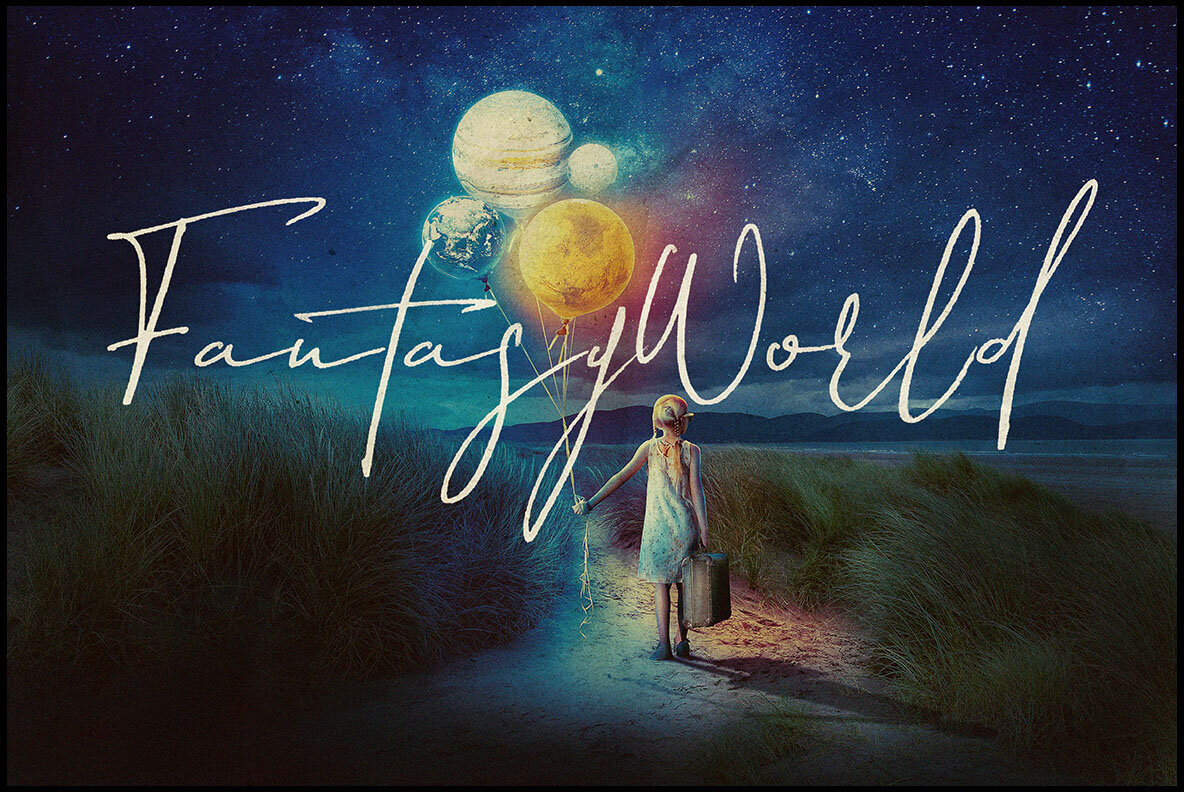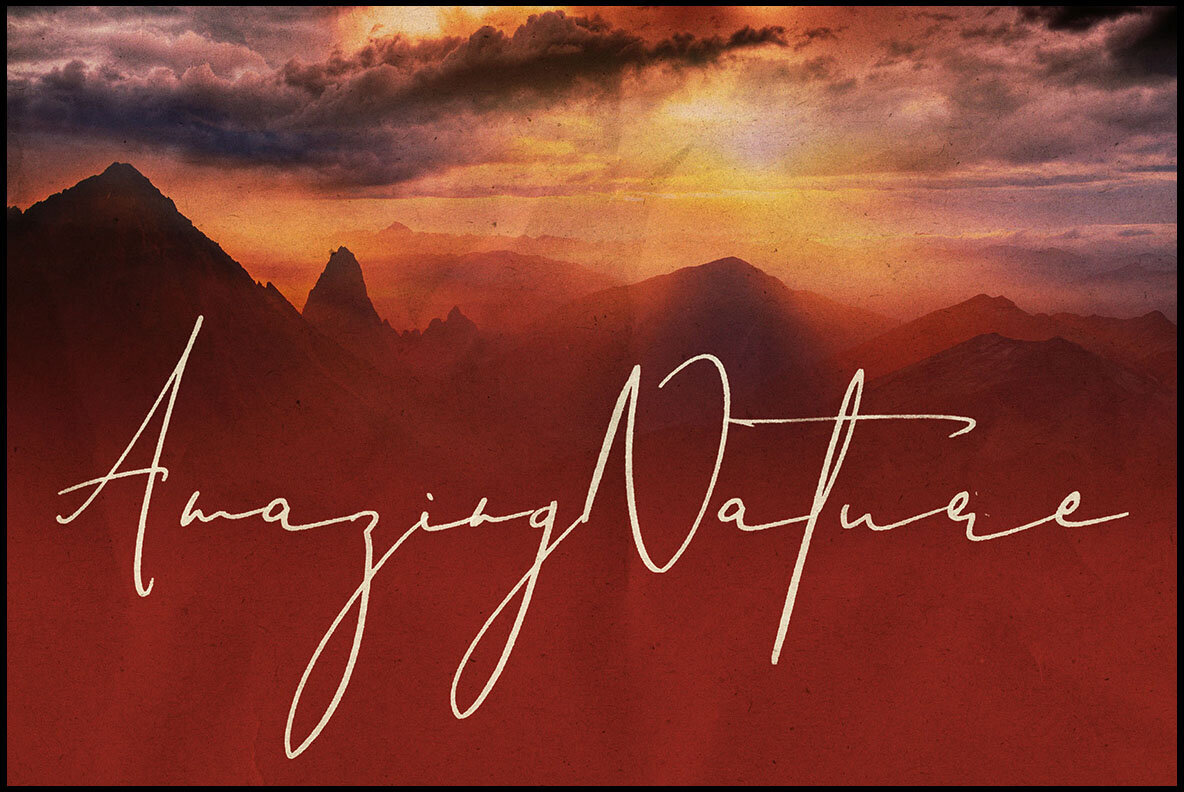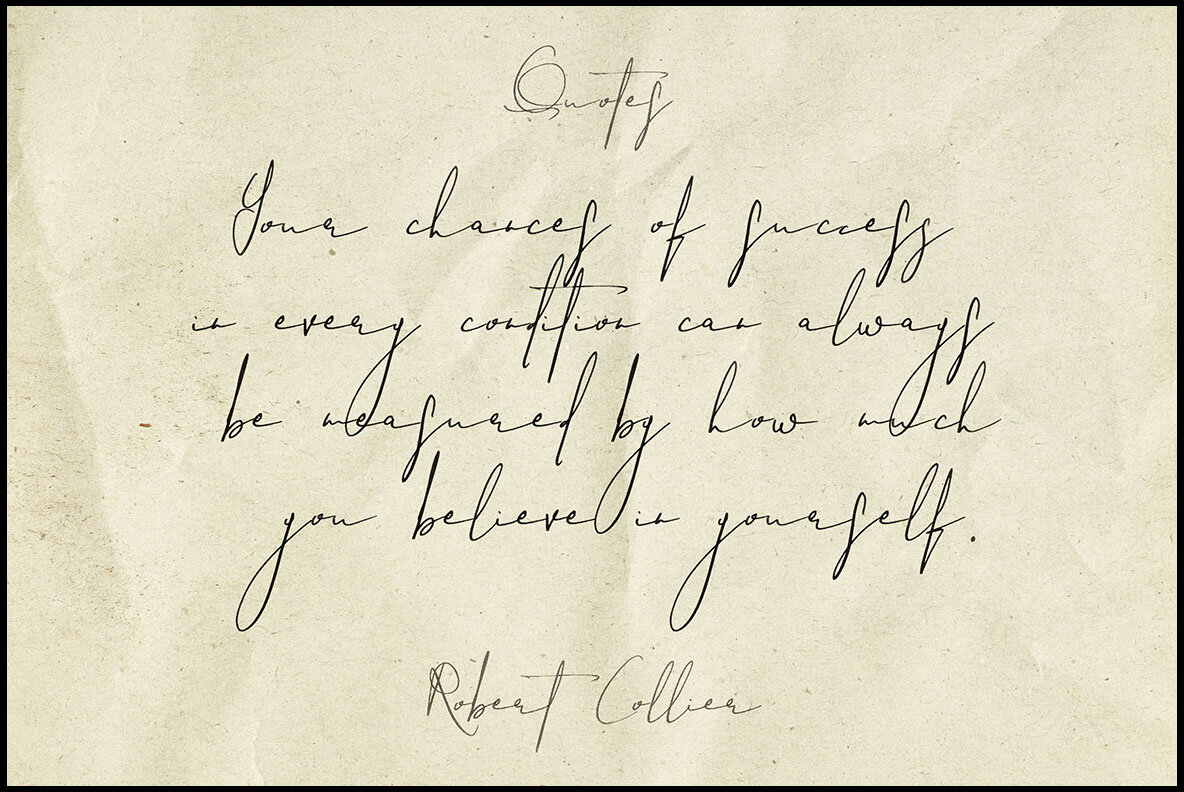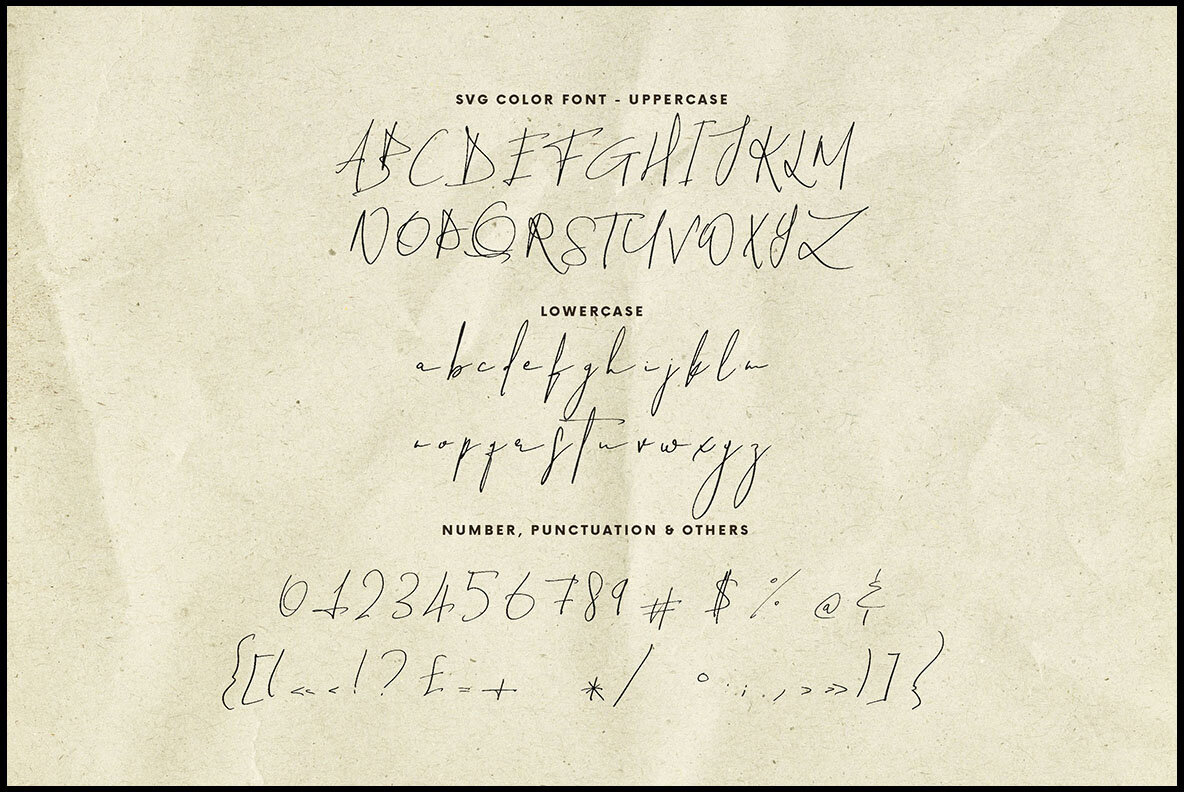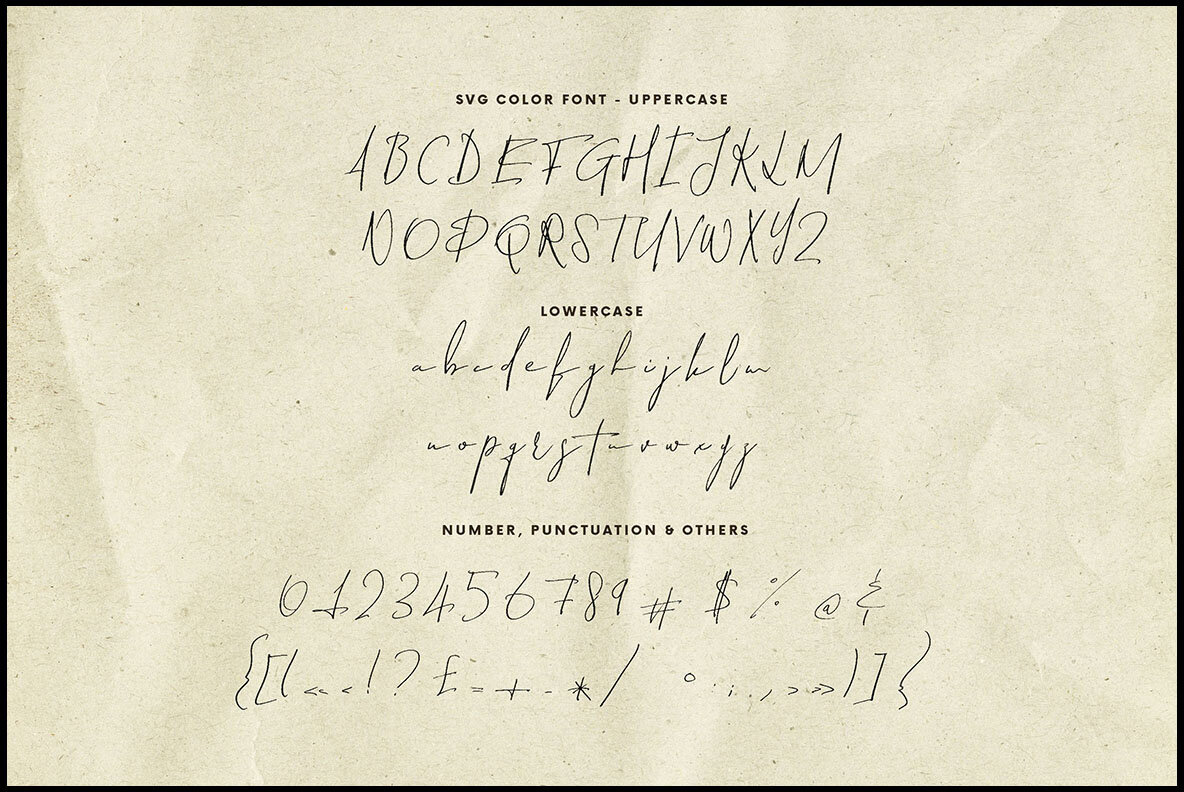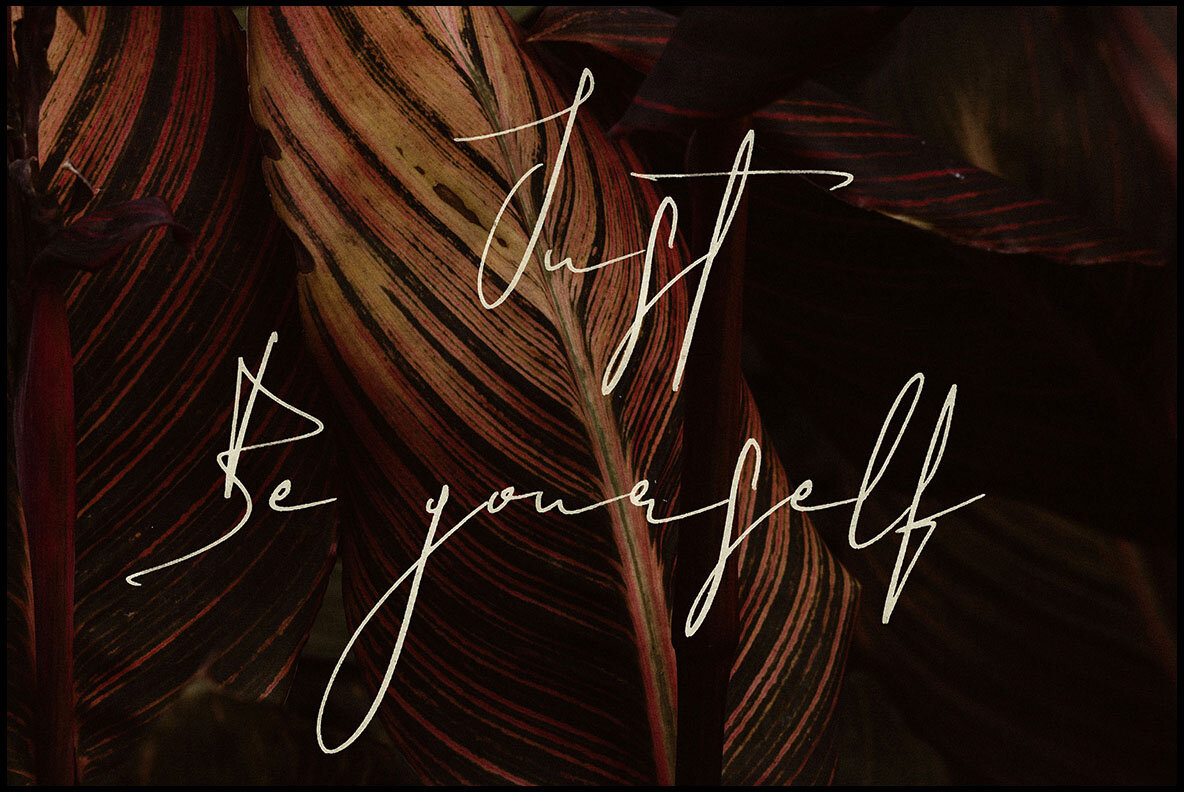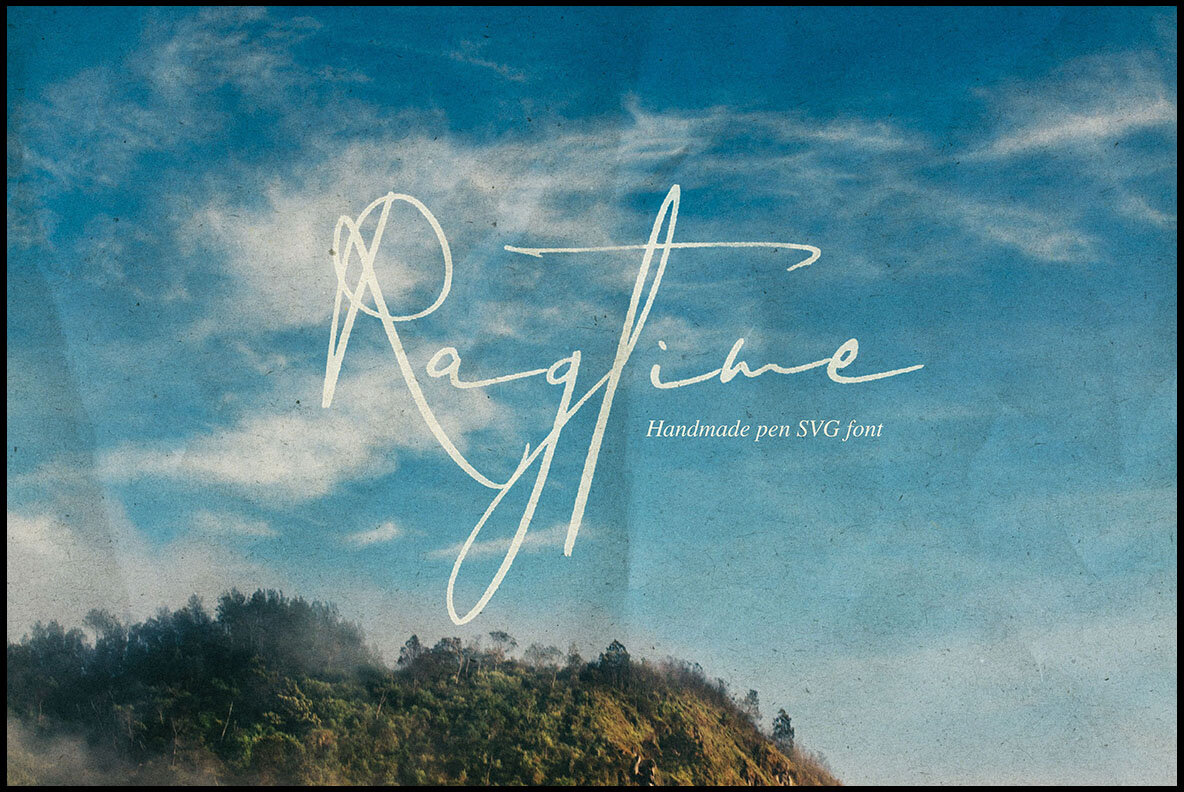
Ragtime SVG Font
Ragtime SVG by Peter Olexa offers a brush, rough, and elegant style that suits grunge, urban, or artistic projects. This script display font is handcrafted with an organic brush marker, adding a unique touch to your creative endeavors.Ragtime SVG: Unique Brush Script Font